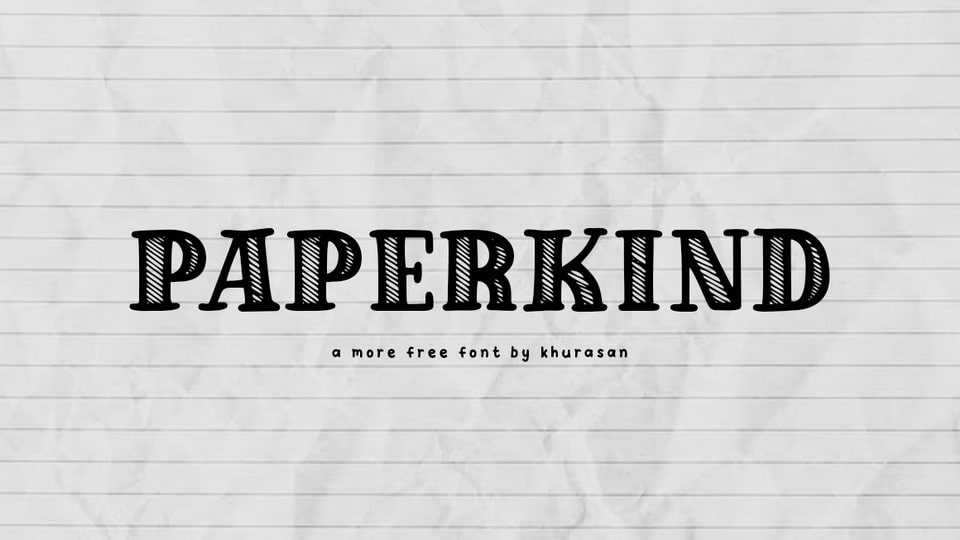
Download Paperkind font, a hand lettered sketch typeface filled with a cheerful, natural vibe. Add a playful and quirky touch to your designs with Paperkind font.